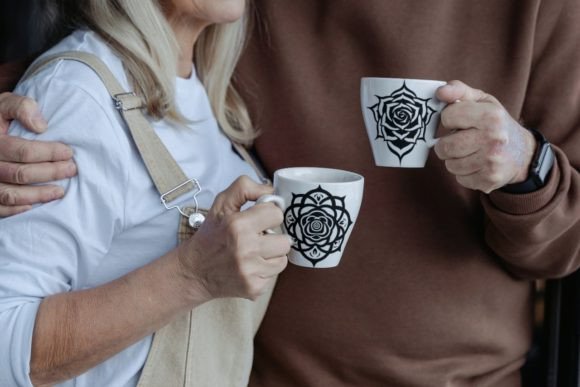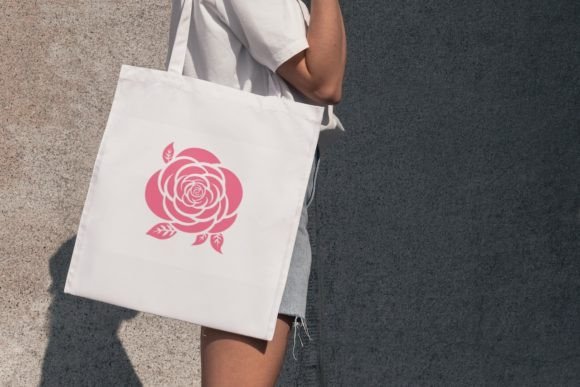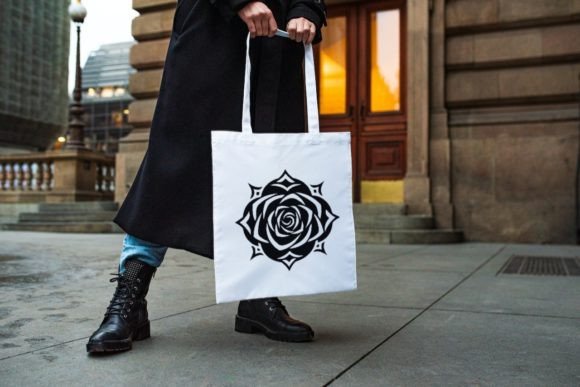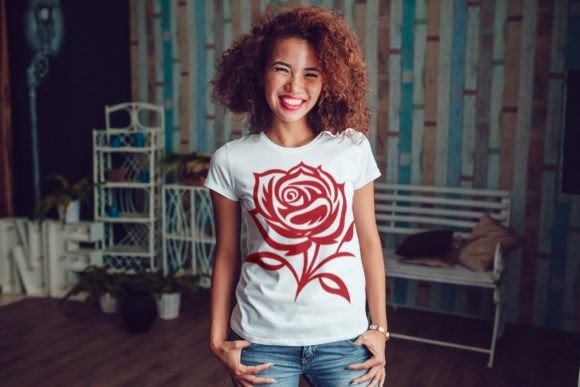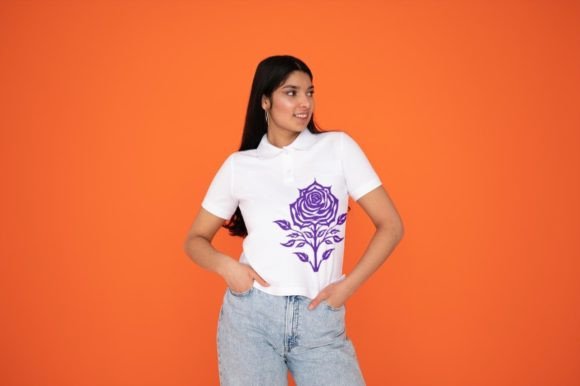
Introducing the Gaze Rose Dingbats Fonts Collection – A Symphony of Elegance and Creativity!
Immerse yourself in the enchanting world of 36 unique rose-inspired designs, each one a delicate masterpiece, meticulously crafted to add an exquisite touch to your projects. From intricate petals to graceful blooms, Gaze Rose Dingbats Fonts breathe life into your creations.
The Beauty of Roses in Typography
Roses have long been a symbol of love, beauty, and elegance. For designers and crafters, incorporating these timeless elements into their work can be a challenge. That’s where the Gaze Rose Dingbats Fonts Collection comes in – a stunning assortment of rose-inspired designs that can elevate any project to new heights.
What is a Dingbat Font?
For those who may be unfamiliar, a dingbat font is a type of font that features decorative symbols, shapes, or illustrations rather than traditional letterforms. Dingbat fonts are often used to add visual interest and personality to designs, making them perfect for creative projects such as invitations, greeting cards, and social media graphics.
The Gaze Rose Dingbats Fonts Collection
The Gaze Rose Dingbats Fonts Collection is a treasure trove of 36 unique rose-inspired designs, each one carefully crafted to showcase the beauty and elegance of these timeless flowers. From delicate petals to full blooms, this collection has something for every design need.
Key Features of the Gaze Rose Dingbats Fonts Collection
- 36 Unique Designs: Each one a delicate masterpiece, meticulously crafted to add an exquisite touch to your projects.
- Rose-Inspired Elements: From intricate petals to graceful blooms, this collection features a wide range of rose-inspired elements.
- Elegant and Versatile: Perfect for a variety of design projects, from invitations and greeting cards to social media graphics and more.
Uses for the Gaze Rose Dingbats Fonts Collection
The Gaze Rose Dingbats Fonts Collection is incredibly versatile, making it perfect for a wide range of design projects. Here are just a few ideas to get you started:
- Wedding Invitations: Add a touch of romance and elegance to your wedding invitations with the Gaze Rose Dingbats Fonts Collection.
- Greeting Cards: Create beautiful, one-of-a-kind greeting cards for special occasions such as Valentine’s Day, Mother’s Day, and more.
- Social Media Graphics: Elevate your social media graphics with the Gaze Rose Dingbats Fonts Collection, perfect for creating eye-catching posts and stories.
- Stationery and Gift Tags: Add a personal touch to your stationery and gift tags with these beautiful rose-inspired designs.
Why Choose the Gaze Rose Dingbats Fonts Collection?
With so many fonts and design elements available, why choose the Gaze Rose Dingbats Fonts Collection? Here are just a few reasons:
- Unique and Exclusive: The Gaze Rose Dingbats Fonts Collection is a one-of-a-kind collection of rose-inspired designs.
- High-Quality Designs: Each design is meticulously crafted to ensure the highest level of quality and detail.
- Elegant and Versatile: Perfect for a wide range of design projects, from elegant wedding invitations to playful social media graphics.
The Gaze Rose Dingbats Fonts Collection is a must-have for designers and crafters looking to add a touch of elegance and creativity to their projects. With 36 unique rose-inspired designs, this collection is perfect for a wide range of design needs. Whether you’re creating wedding invitations, greeting cards, or social media graphics, the Gaze Rose Dingbats Fonts Collection is sure to impress.